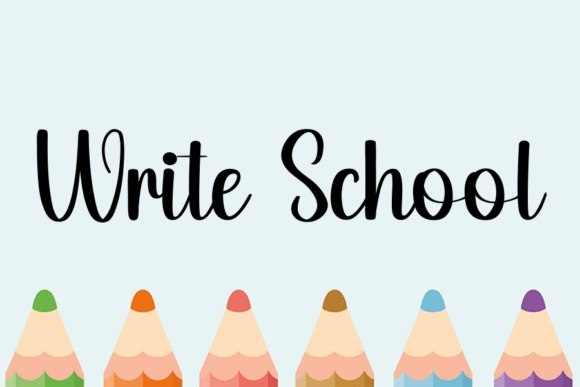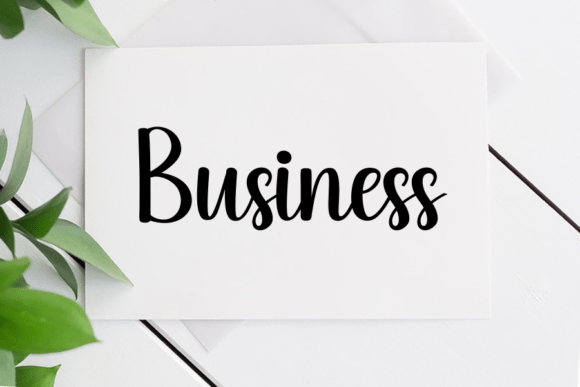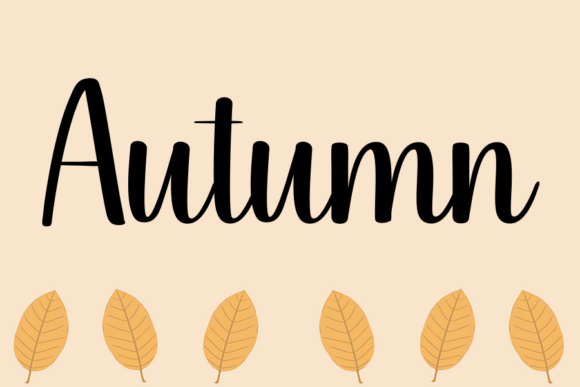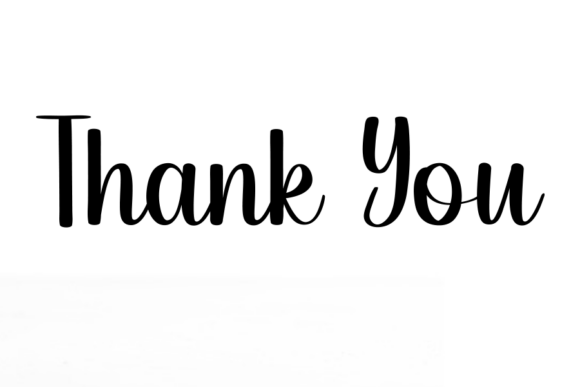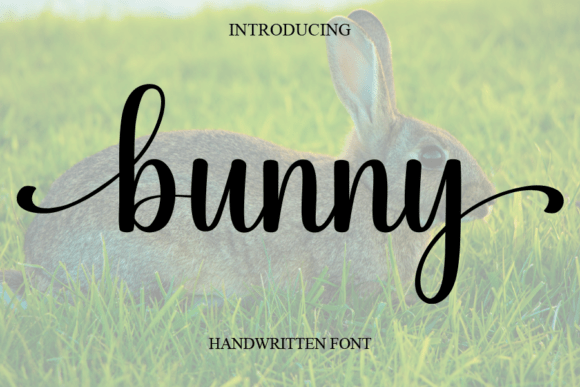
The Sweetness of Bunny Font: A Designer’s Delight
I still remember the time I was working on a wedding invitation project, and my client asked for a font that was both elegant and playful. I scoured the internet, trying out font after font, but nothing seemed quite right. That was until I stumbled upon Bunny Font, a sweet and cursive handwritten font that stole my heart. In this article, I’ll share my love for Bunny Font, its features, and how to make the most of it in your designs.
An Honest Review of Bunny Font
- 💕 The gentle, cursive script is perfect for adding a touch of romance and whimsy to any design.
- 🎉 The font is incredibly versatile and can be used for a wide range of projects, from branding and logos to wedding invitations and greeting cards.
- 👍 The elegant, yet casual feel makes it ideal for designers who want to add a touch of sophistication to their work.
- 🌈 The font comes with a range of OpenType features, glyphs, and stylistic alternates, giving you plenty of creative options.
While Bunny Font is an amazing addition to any design project, there are a few things to keep in mind:
- 🤔 The font can be a bit tricky to read at smaller sizes, so make sure to test it thoroughly before finalizing your design.
- ⚠️ Some of the more intricate glyphs and swashes may not display correctly on all devices or platforms.
The Story Behind Bunny Font
Bunny Font was created by a talented designer who wanted to capture the essence of a romantic, whimsical feel. Inspired by the beauty of handwritten scripts, the designer crafted a font that would add a touch of elegance and playfulness to any design.
| Font Name | Bunny Font |
| Author | salma studio |
Q: What is Bunny Font best used for?
A: Bunny Font is perfect for a wide range of design projects, including branding, logos, wedding invitations, greeting cards, and more.
Q: Is Bunny Font available in different weights or styles?
A: Yes, Bunny Font comes in a range of weights and styles, allowing you to experiment with different looks and feels.